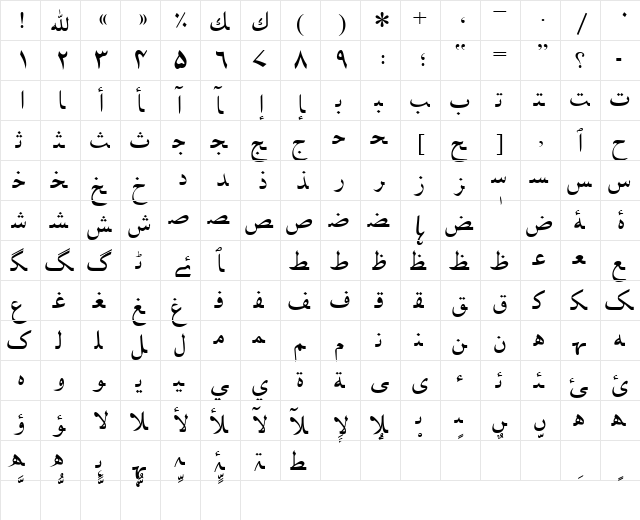
UrduNaskhSSK Regular Font Preview
UrduNaskhSSK Regular
Design Context for UrduNaskhSSK Typeface
UrduNaskhSSK offers clean, dependable letterforms without strong stylistic allegiance, making it a practical choice for designers who need flexibility.